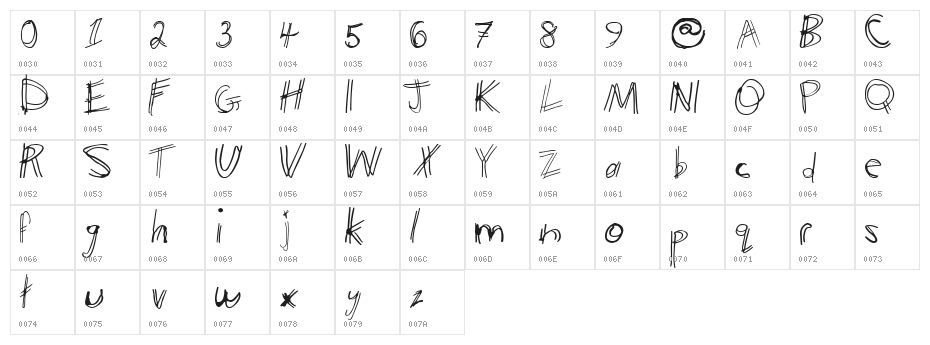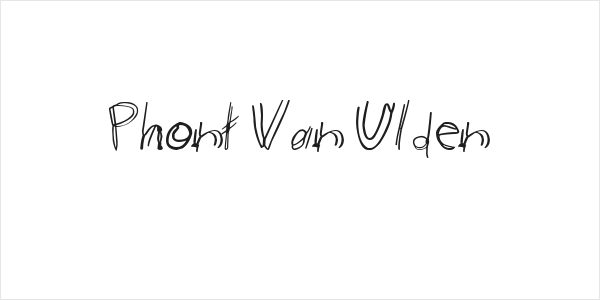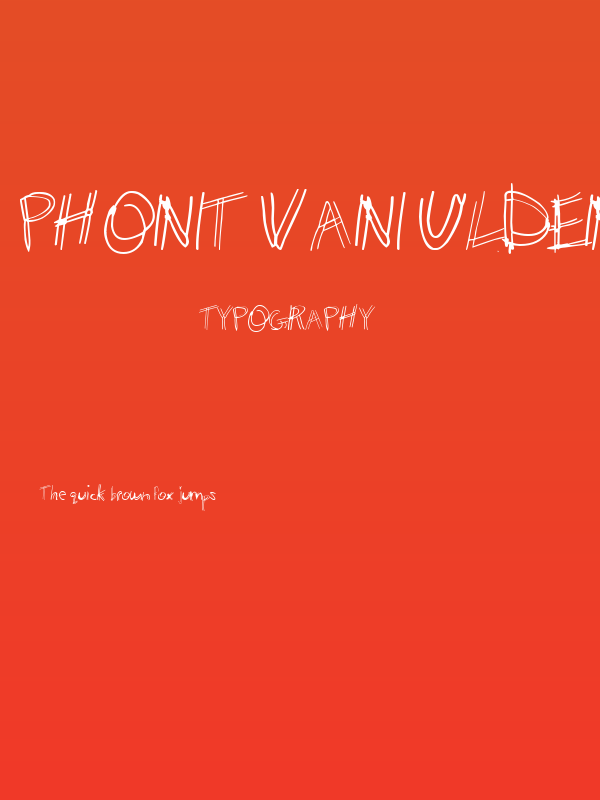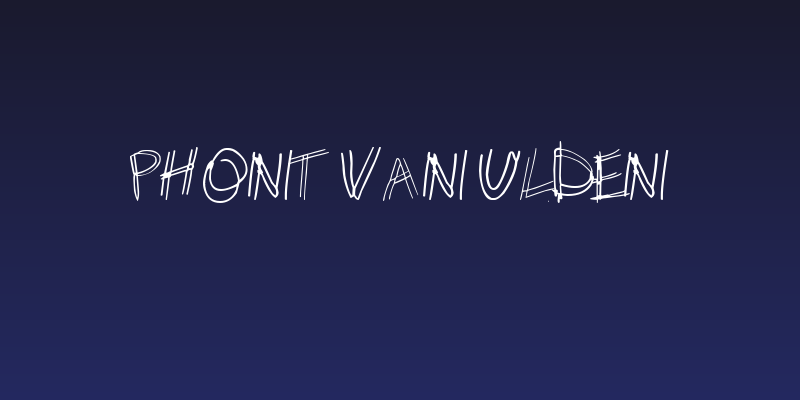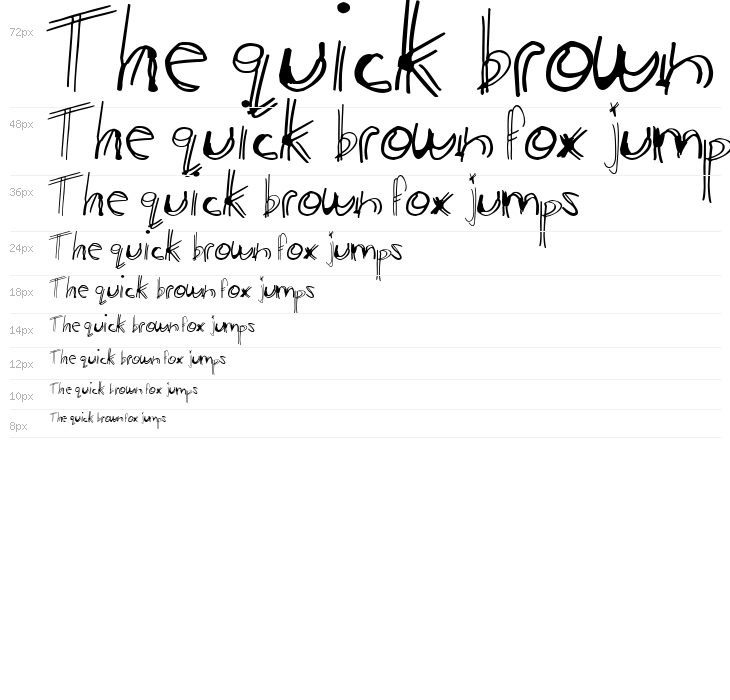
Phont Van Ulden Font
Phont Van Ulden Description
This font features a highly expressive and artistic style, characterized by its irregular, hand-drawn appearance. The letters exhibit a playful and whimsical quality, with varying stroke thicknesses and a dynamic, sketch-like quality. The uppercase and lowercase letters maintain a consistent, freeform aesthetic, while the numerals and special characters complement the overall design with their unique, creative flair. The font's distinct personality makes it stand out, offering a sense of individuality and creativity.
| Use Case | Logos, Posters, Creative projects |
| Proposed Projects | Ideal for creative projects such as art posters, children's book illustrations, and unique branding materials. |